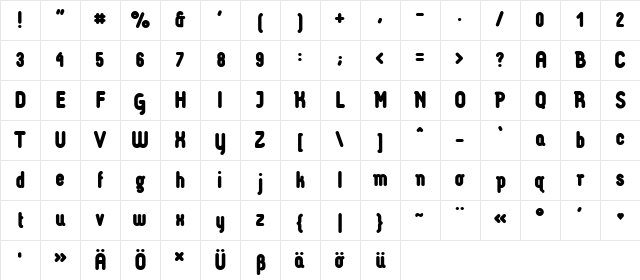
Luco Sans 923
Foundry: Lukas Bischoff
Designer: Lukas Bischoff
Design Context for Luco Sans
Luco Sans is a composed and adaptable typeface that performs quietly and consistently across a wide range of design contexts.